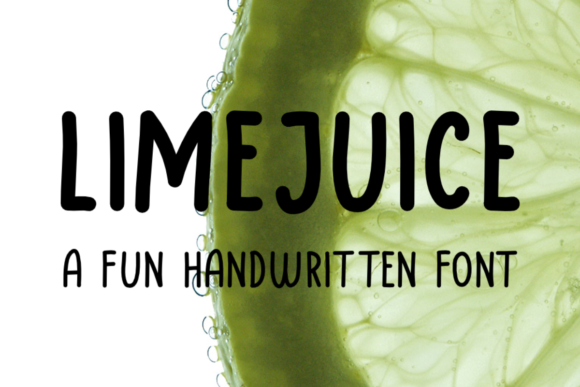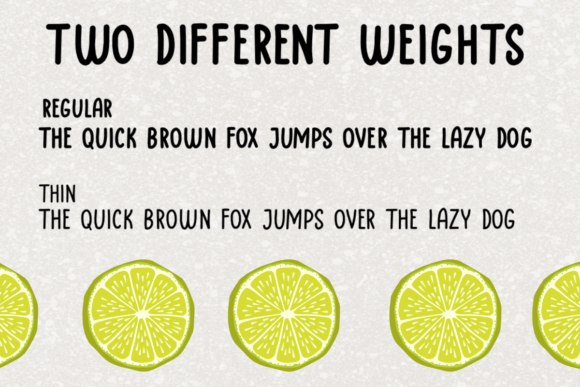
About Limejuice Font
Limejuice is a cool and simple display font. It can easily be matched to an incredibly large set of projects, so add it to your creative ideas and notice how it makes them stand out!